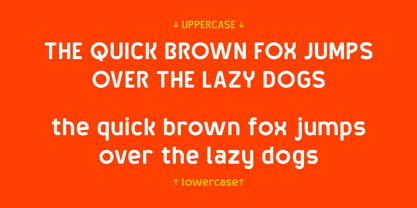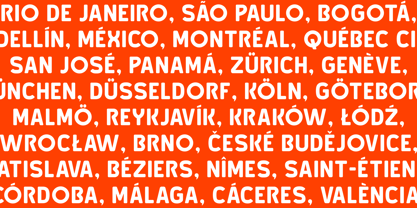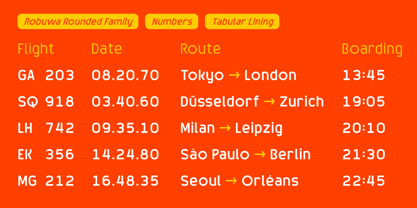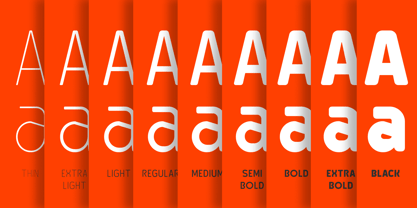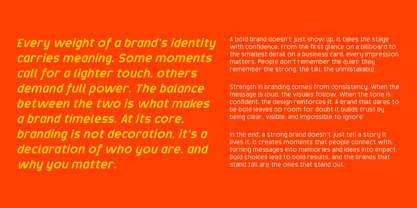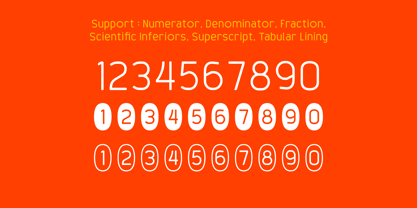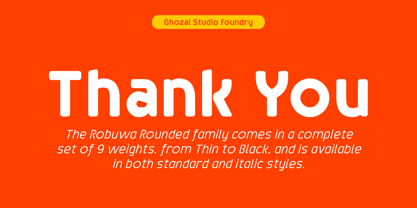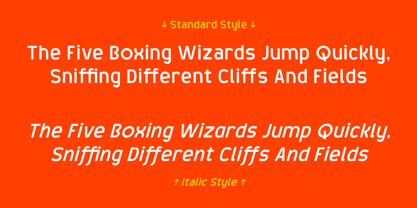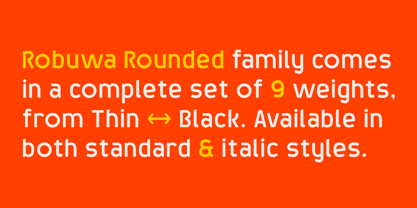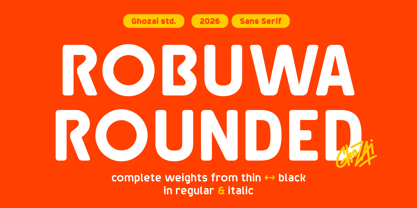
Robuwa Rounded
La familia tipográfica Robuwa Rounded fue diseñada por Manzur Ghozaali y publicada por Ghozai Studio. Robuwa Rounded contiene 18 estilos y opciones de paquete familiar. Más información sobre esta familia
Robuwa Rounded is a rounded grotesk-sans font family that offers a selection of 9 distinct weights, ranging from Thin to Black, along with both regular and italic styles, for a total of 18 fonts. This extensive range of weights is enhanced by a rich set of symbols, OpenType features, and Tabular Lining numbers, providing exceptional versatility for various languages and design needs. Its modern, clean, and bold aesthetic makes it perfect for a wide array of applications, including display, branding, signage, festival posters, sports, and more. Whether crafting impactful headlines, unique logos, or clear signage, Robuwa Rounded seamlessly combines style with functionality. Its adaptability to different design styles positions it as an excellent choice for any project requiring a bold and contemporary flair.